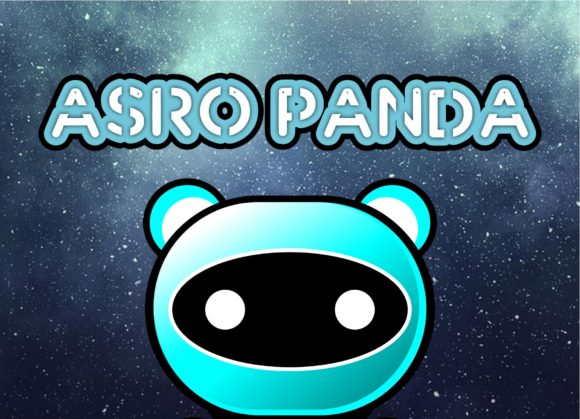
In a cosmos of creative expression, there exists a celestial entity known as the ASTRO PANDA Font, a stellar display font that transports you to the boundless expanse of imagination. Its bold, high-weight strokes resemble the sturdy hide of an interstellar panda, ready to adorn your designs with a touch of cosmic grandeur.
Step into a realm where lettering takes on a new dimension, where words transform into celestial wonders under the ASTRO PANDA's guidance. Its firm structure, reminiscent of a stalwart guardian, stands resolute against the test of time, ensuring your creations endure as timeless masterpieces.
With the ASTRO PANDA Font, embark on a journey beyond the mundane, where your designs transcend earthly boundaries and ascend to the celestial realm. Its firm strokes, like a celestial compass, guide your creativity towards uncharted territories, pushing the limits of expression to unprecedented heights.
Whether you seek to conjure inspiring wall posters that whisper tales of cosmic wonder or bestow titles upon your works that echo the grandeur of the cosmos, the ASTRO PANDA Font stands as your unwavering ally, ready to transform ordinary words into celestial masterpieces.
Adorn your creations with the celestial allure of the ASTRO PANDA Font, a gateway to a universe of boundless imagination where your designs take flight among the stars.